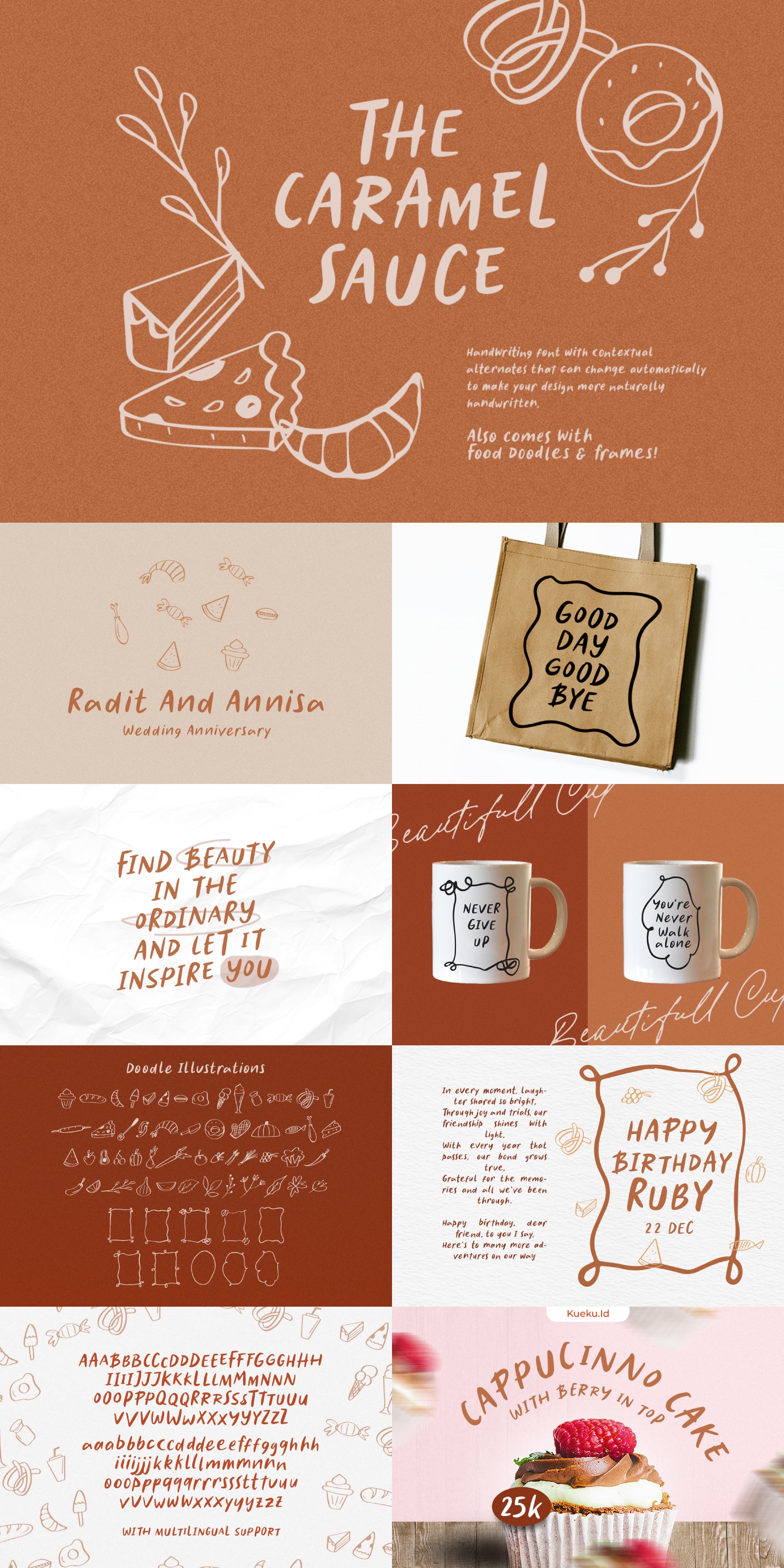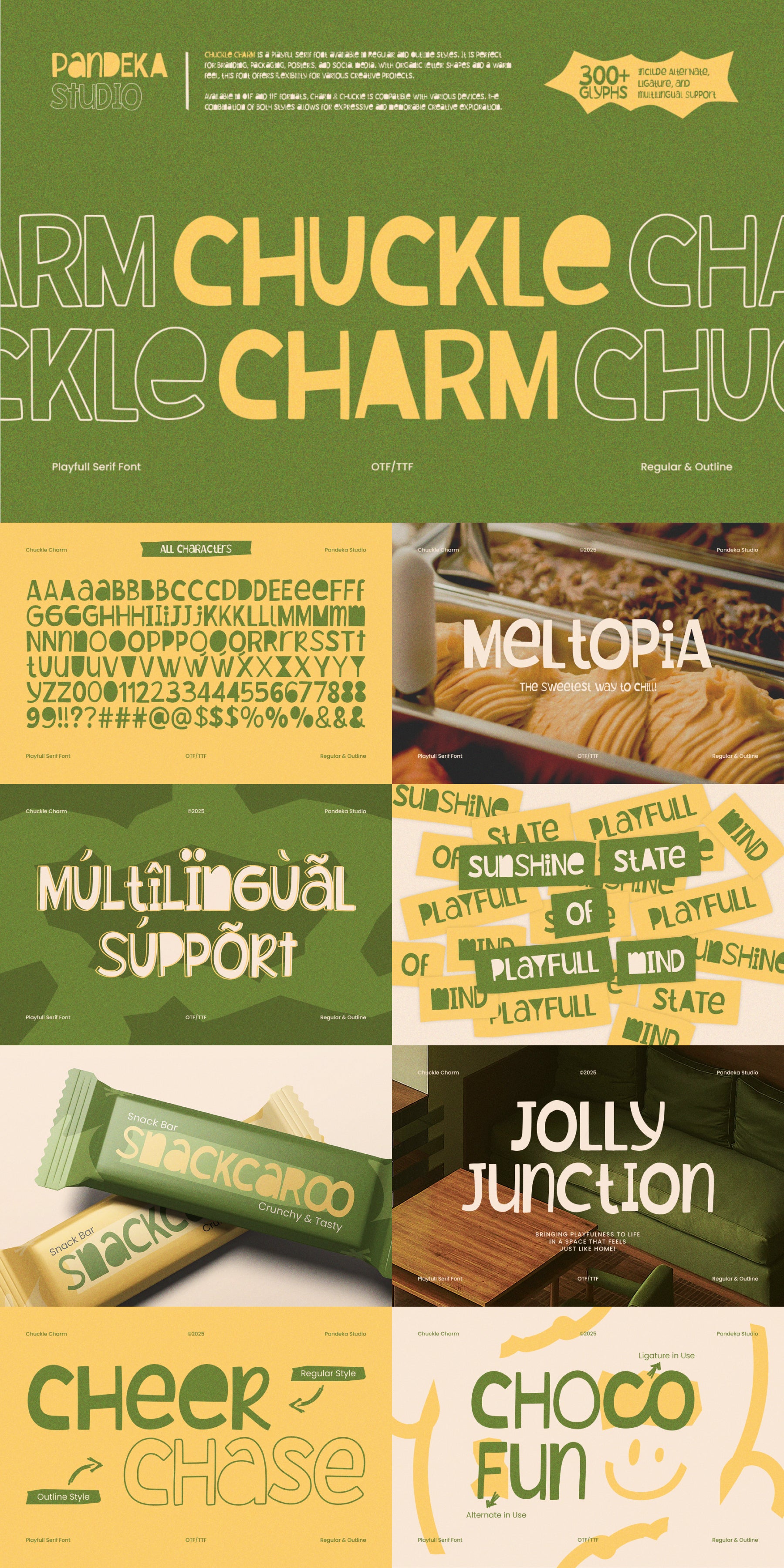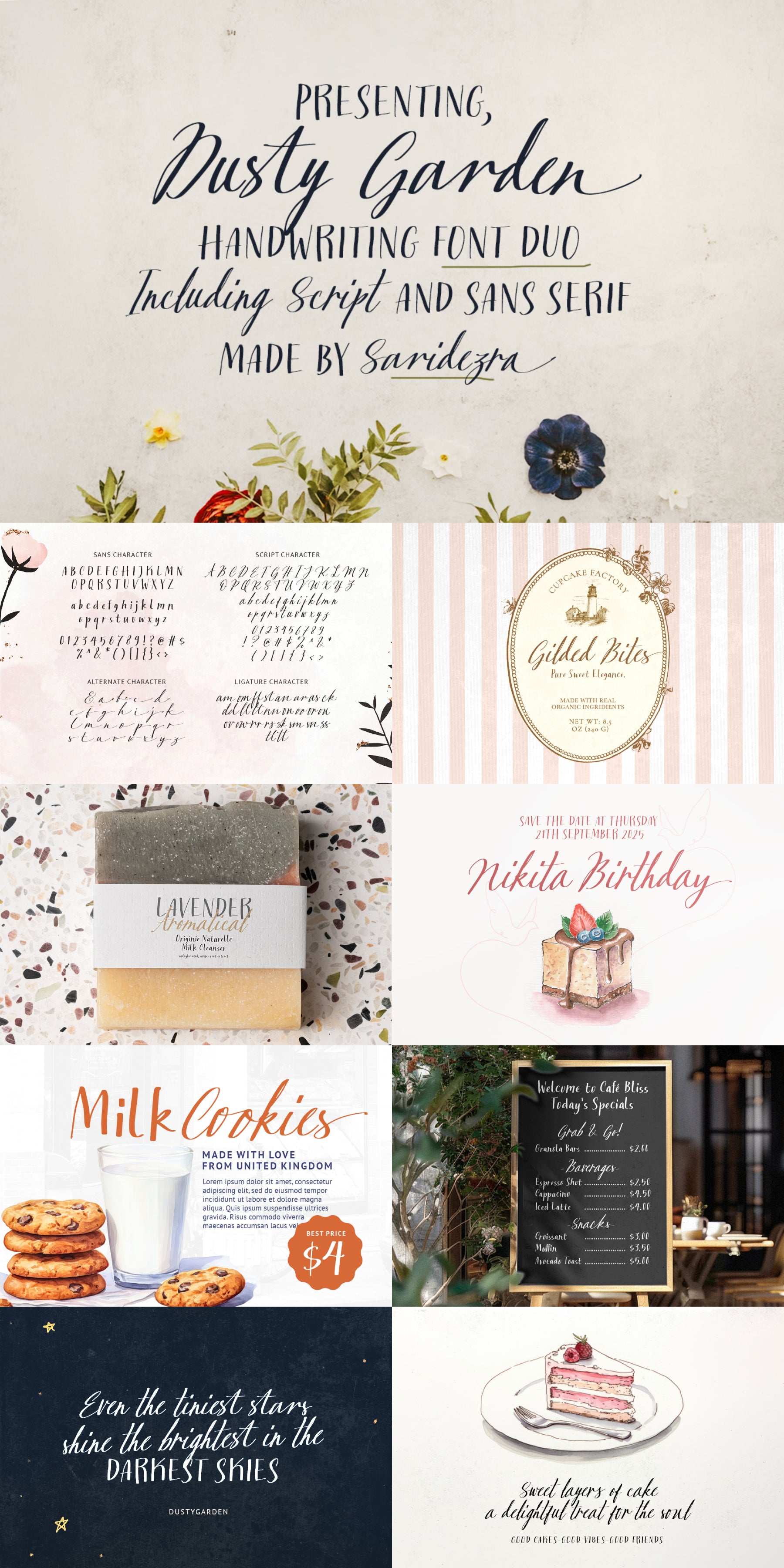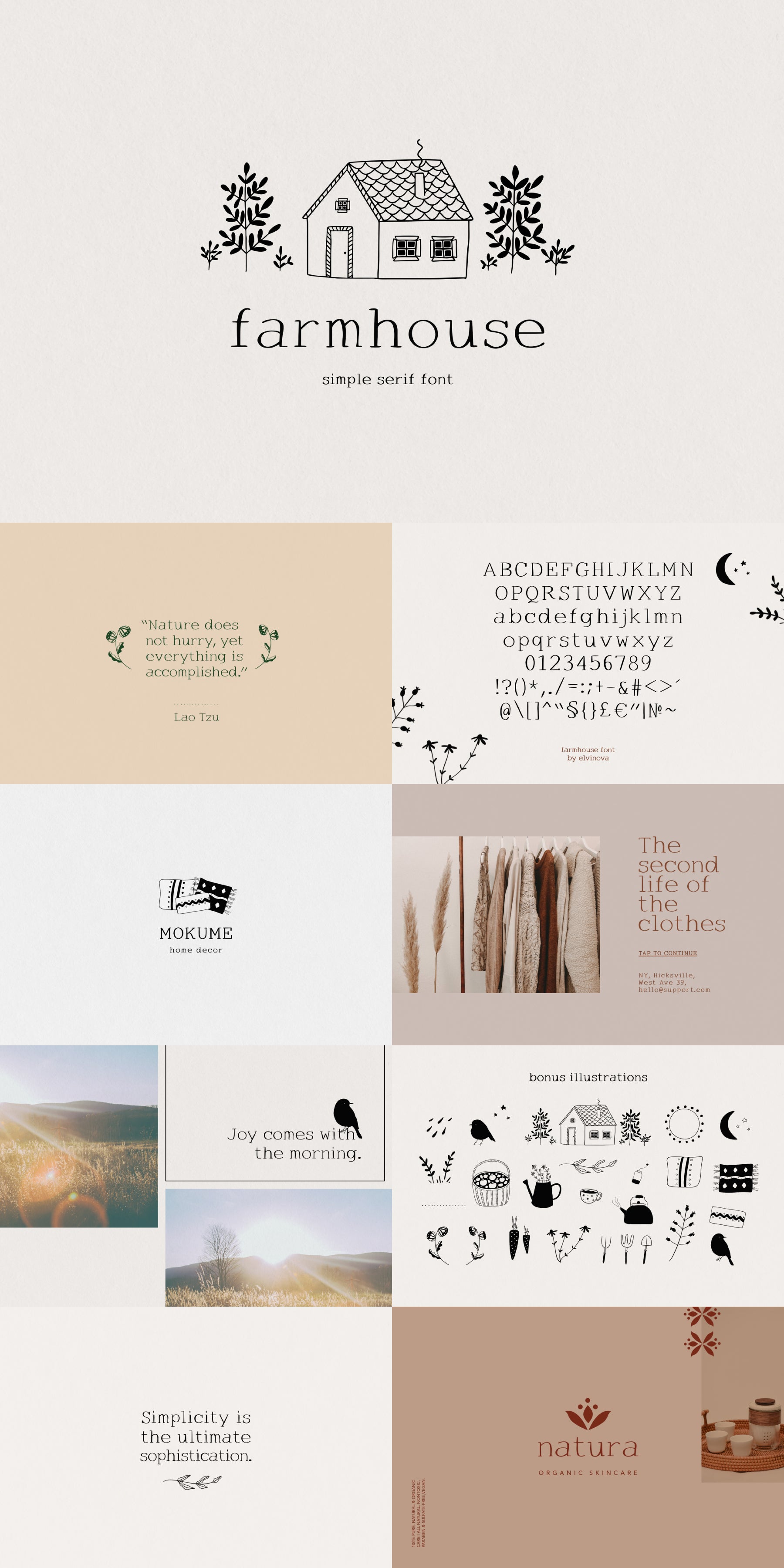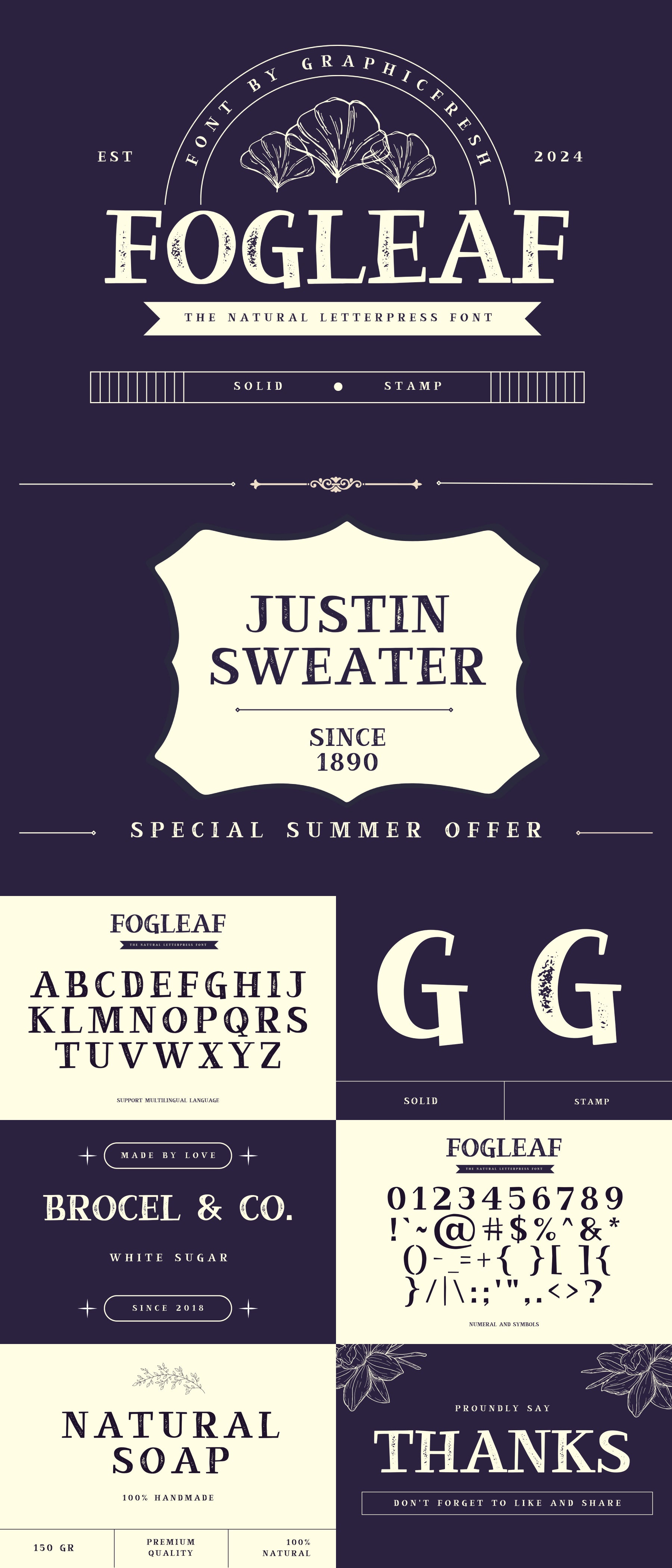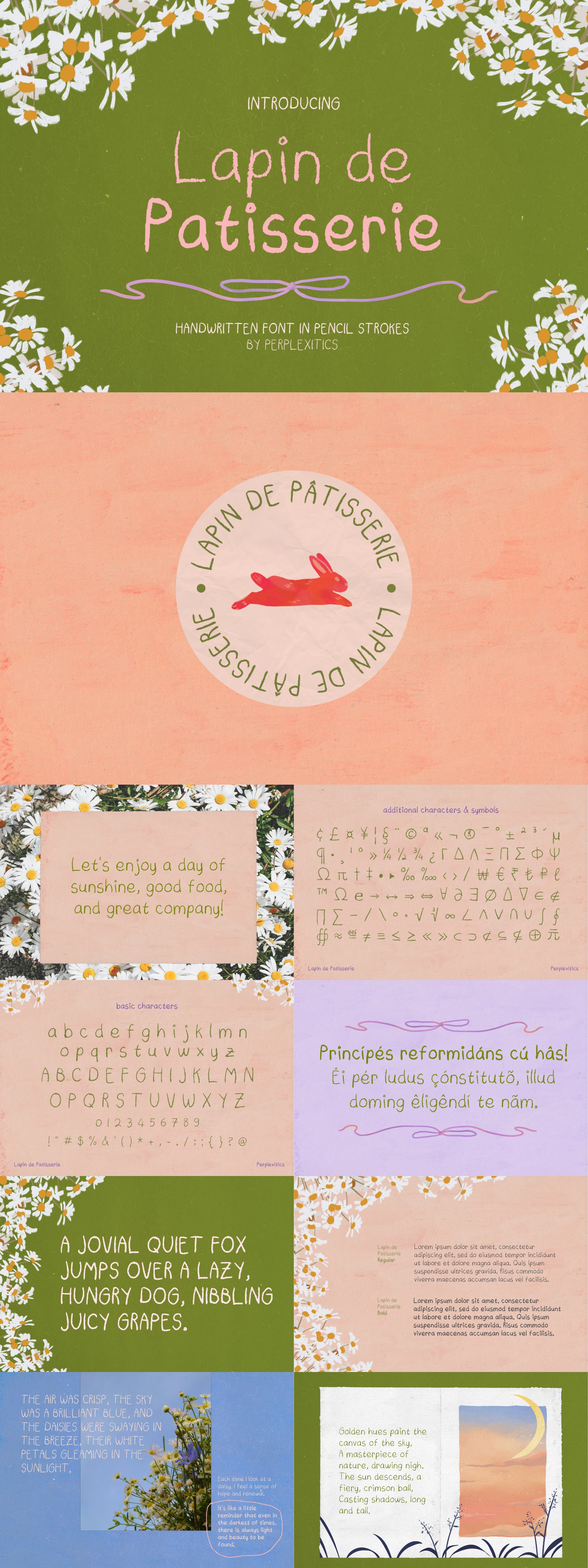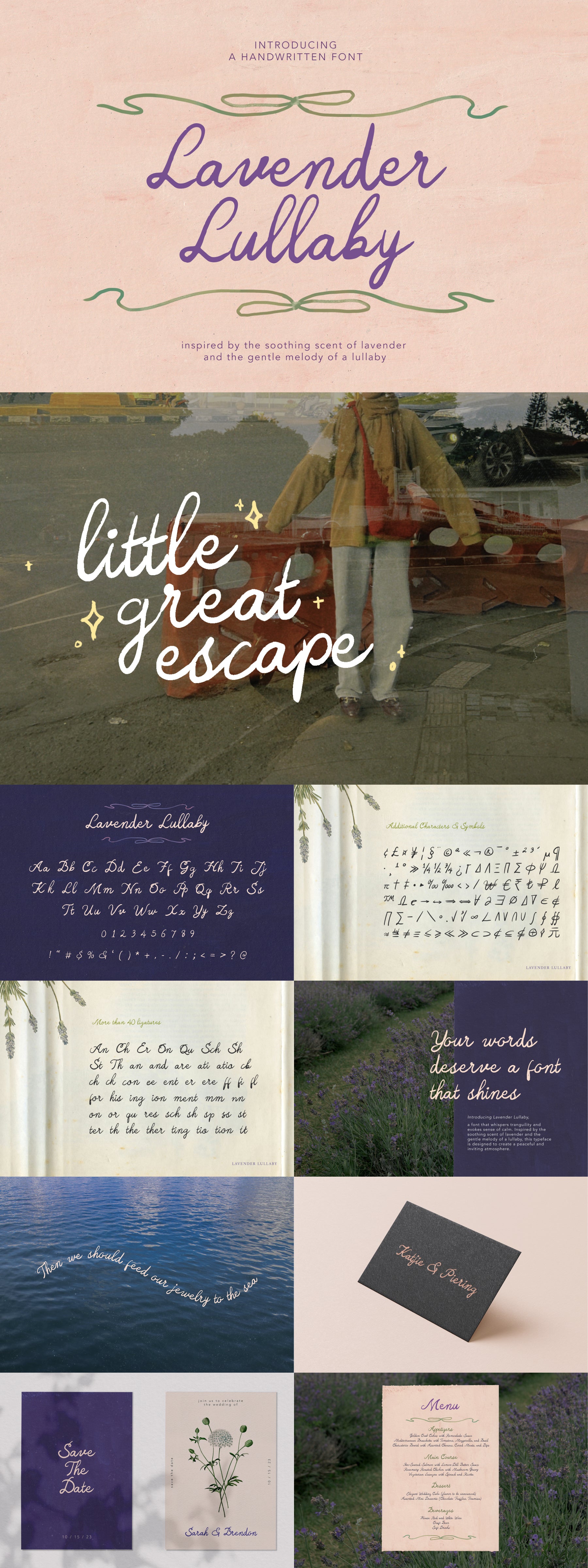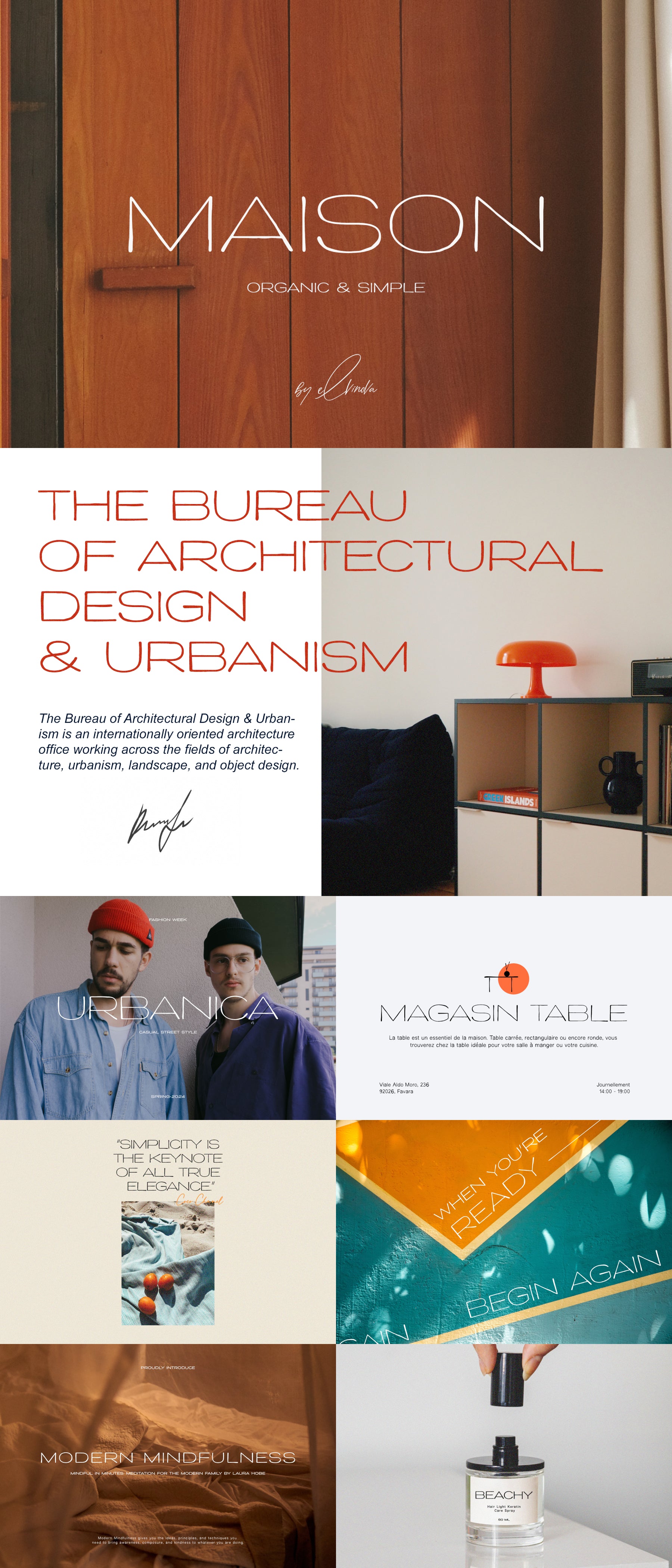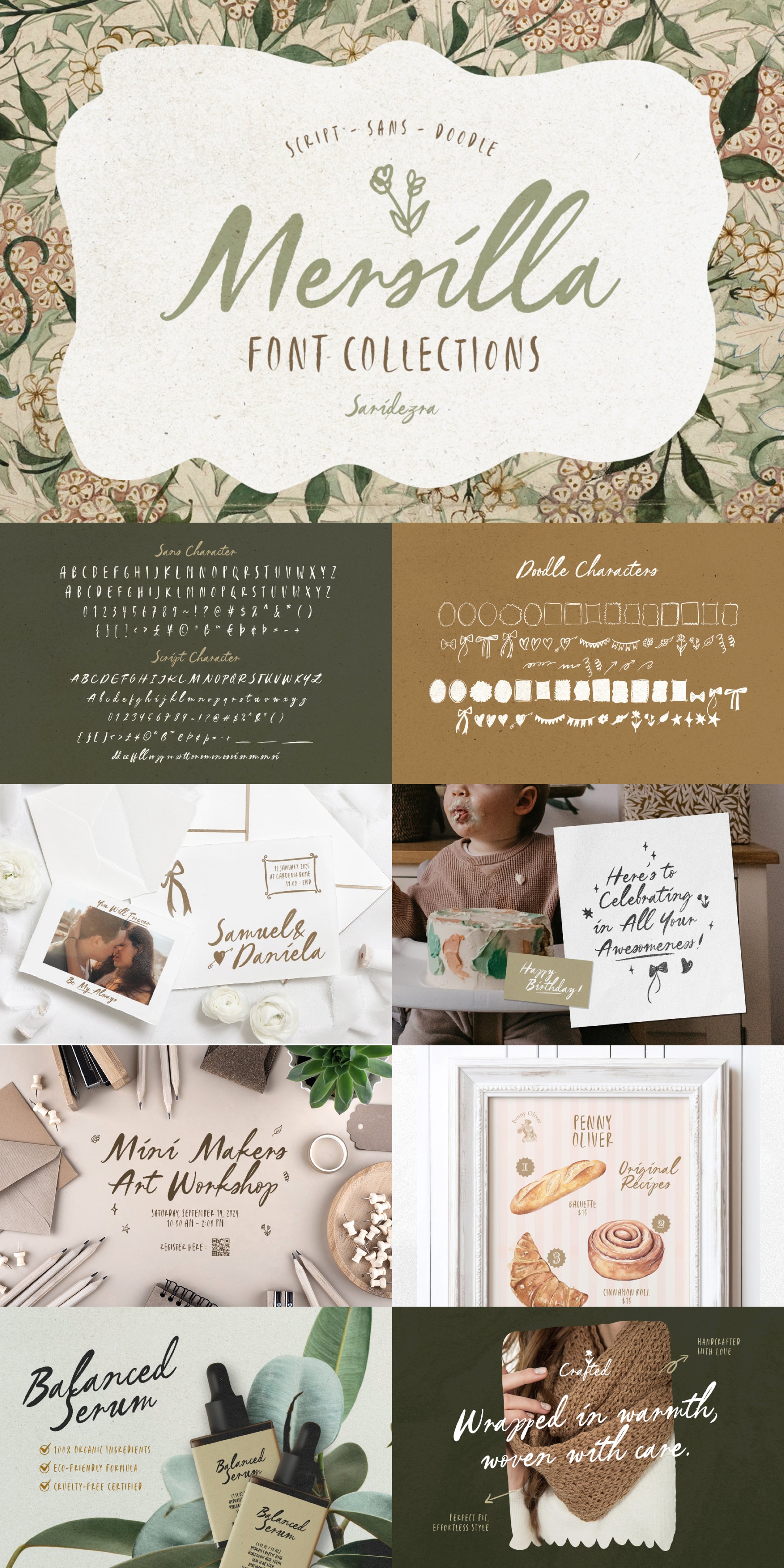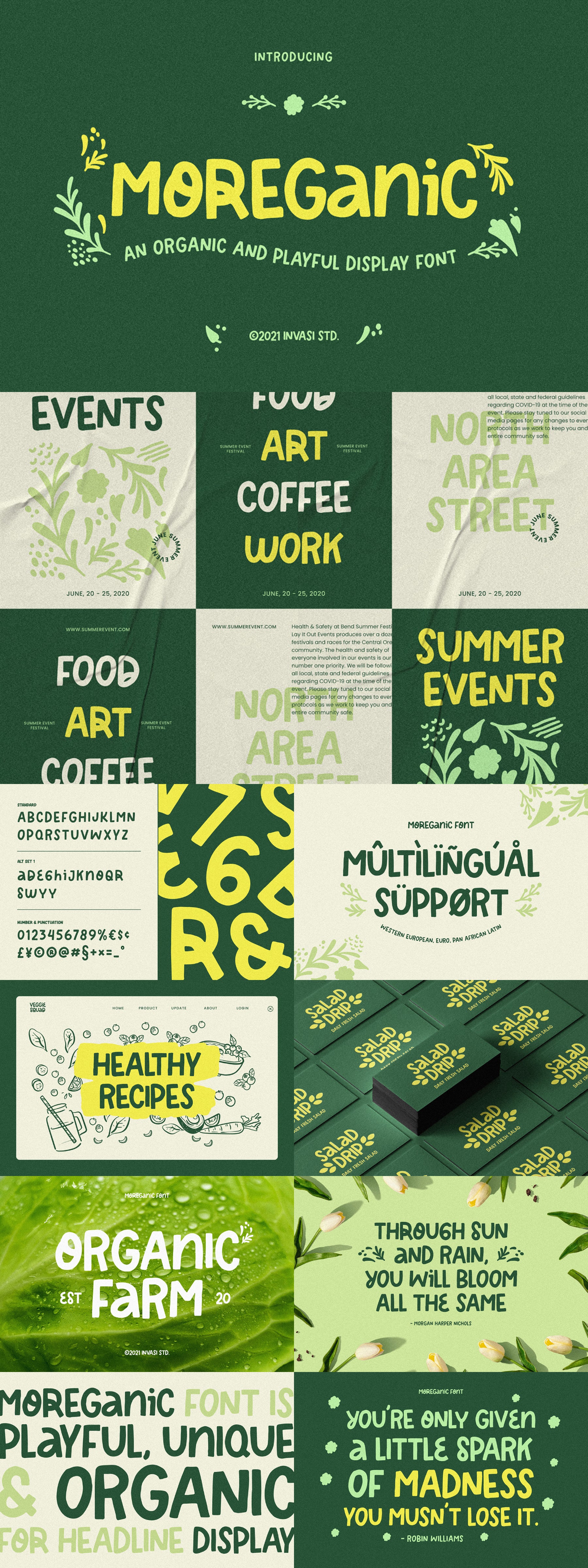
The Farmers Market Font Bundle
Bring that handmade charm to your next project.
The Farmers Market Font Bundle is packed with 22 handcrafted typefaces and a generous helping of bonus illustrations and doodles.
Inspired by classic hand drawn signage, rustic produce labels and vintage logos, this collection adds a warm, authentic feel to any design.
Whether you're working on packaging, menus, branding or marketing designs, these fonts and extras give your work that small-batch, homemade touch.